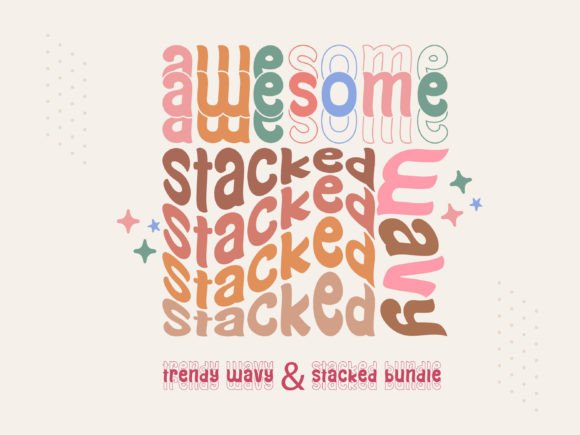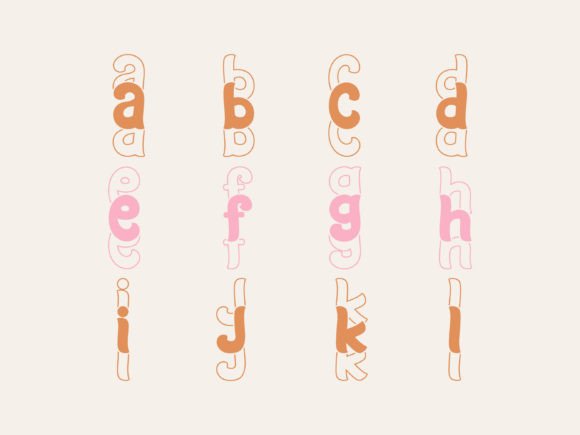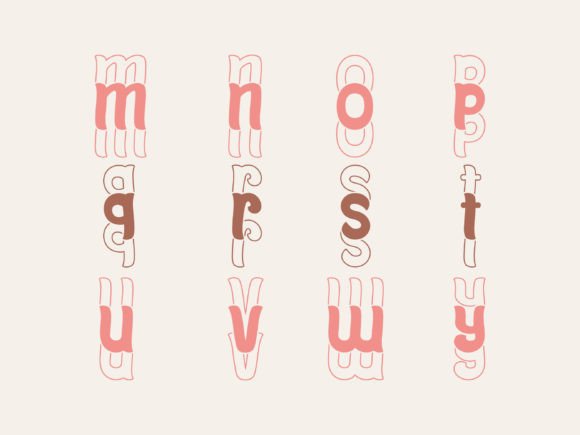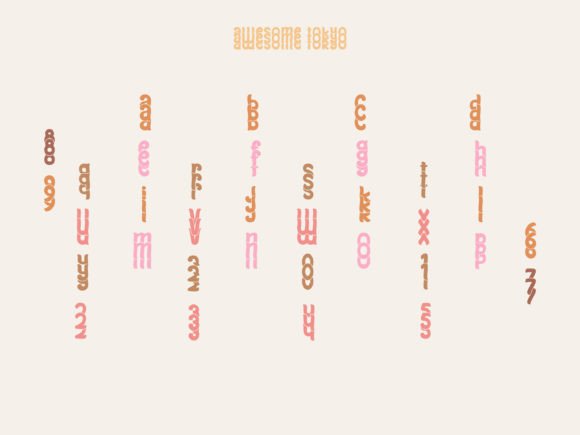
Awesome Wavy Stacked Font
About the Awesome Wavy Stacked Font
Presenting Awesome Wavy Stacked Font, a unique and stylish typeface that will make your work stand out. Awesome Wavy Stacked is a cute and charming display font. Whimsical and a bit quirky, this font will brighten up each of your designs. Add it confidently to your projects, and you will love the results.
Its playful, stacked nature makes it ideal for headlines, short slogans, and branding elements where a fun, eye-catching aesthetic is desired. Think children’s books, playful packaging, or logos for businesses targeting a younger demographic. However, its limited readability makes it unsuitable for body text or UI elements requiring extended reading.
Awesome Wavy Stacked pairs well with clean sans-serif fonts like Open Sans or Lato for balance, creating a contrast between the playful display font and a legible text font. Alternatively, a classic serif like Garamond or Playfair Display can add a touch of sophistication, grounding the whimsical energy of the display font. Avoid pairing it with other highly decorative fonts, which would create visual clutter.
The font’s overall personality is undeniably cheerful and quirky, conveying a sense of youthful energy and fun. It’s best used sparingly as a highlight, rather than a dominant element in a design.
Awesome Wavy Stacked Font Usage Examples
Awesome Wavy Stacked Font Example